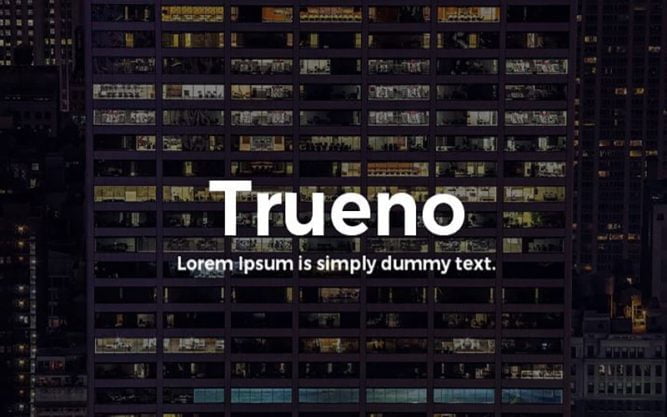
Trueno Sans Font is a huge and amazing font family in the design markets. This font designer Mr. Julieta Ulanovsky took charge of designing and releasing this awesome typeface for the first time.
This display font has come in 22 various styles. Including Regular, Light, Light Italic, Regular Italic, UltraLight Italic, UltraLight, Bold, and Bold Italic. SemiBold, SemiBold Italic, Bold Outline, etc.
Due to its clean and clear nature, it has a unique and amazing reading ability. You can definitely use this great font for your designs. Therefore, you should clarify its structure in pictures for review.
Trueno Sans Font
| Font Name: | Trueno Sans Font |
| Style: | Sans Serif, Various, Typeface |
| Font Designer: | Mr. Julieta Ulanovsky |
With a solid structure, a clean and tidy appearance separates the typeface paralysis. With these posts, many designers are using this wonderful font for their ongoing projects.
Many graphic designers are following suit for their work and some are creating first-class designs. So, you can also use this magnificent font on your website projects which will make it unique and professional.